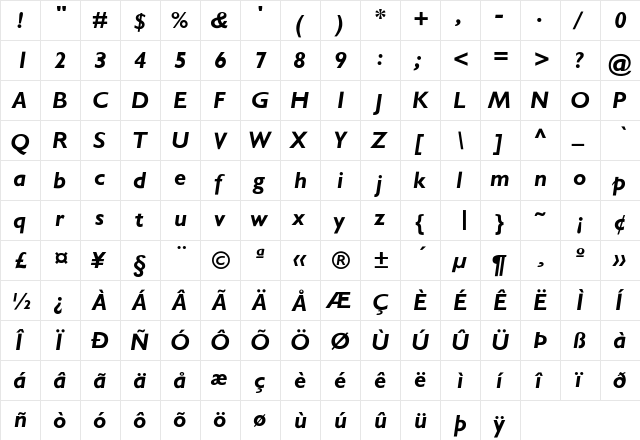
GarrisonSans-BoldItalic Regular Font Preview
GarrisonSans-BoldItalic Regular
GarrisonSans-BoldItalic Regular Font Details
Design Context for GarrisonSans-BoldItalic Typeface
GarrisonSans-BoldItalic offers clean, dependable letterforms without strong stylistic allegiance, making it a practical choice for designers who need flexibility. Its italic angle brings a sense of urgency and motion to the letterforms. Its bold stroke weight gives it real presence on the page.